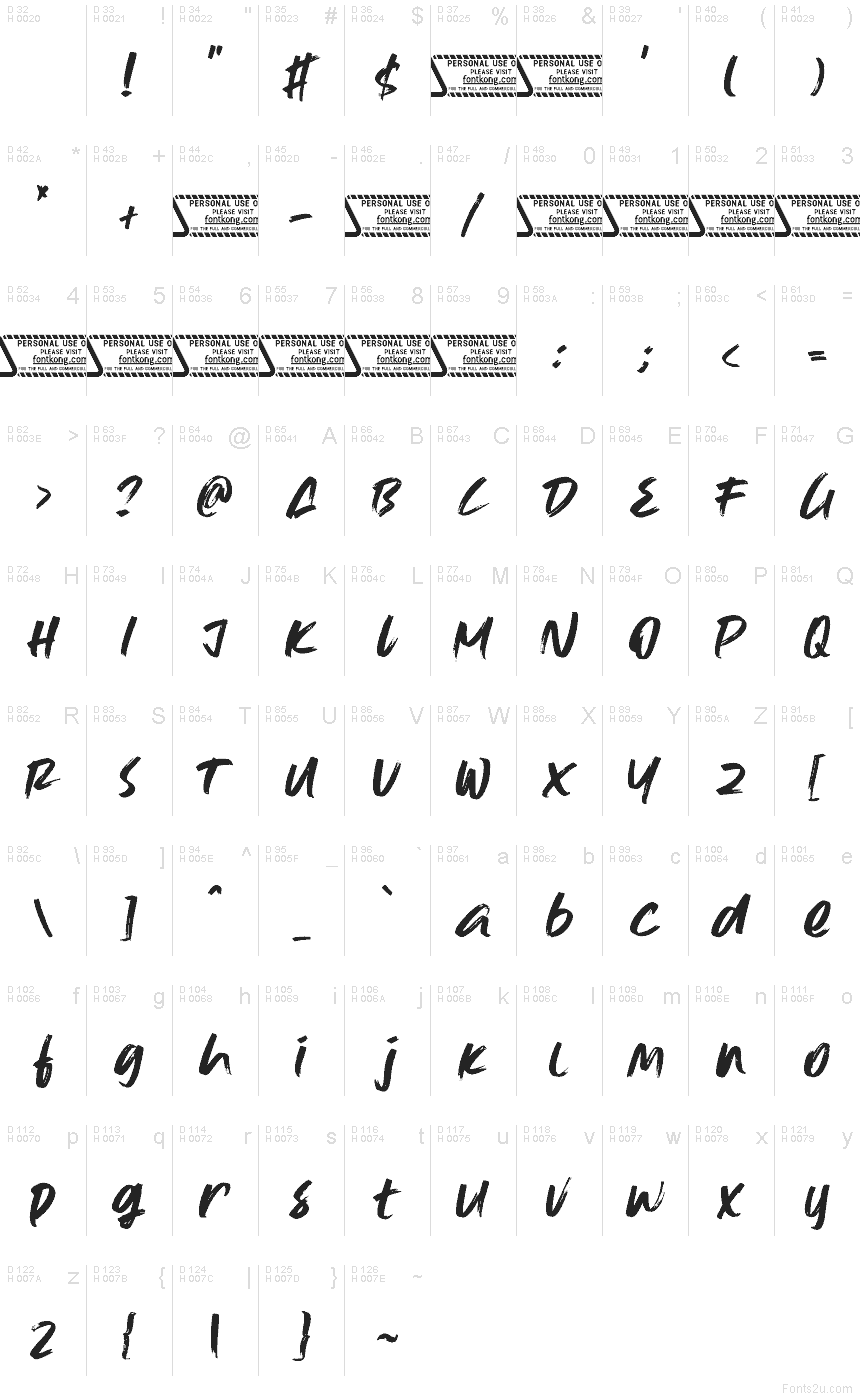
Gilbern PERSONAL USE ONLY!
Gilbern font by Kong Font is a free brush font that captivates with its hand-drawn aesthetic and energetic strokes. Its imperfect lines and expressive flair give it an artistic vibe that holds limitless potential in modern branding applications. The font has a harmonious balance, just enough to be clean but not unnatural, youthful but not childish.